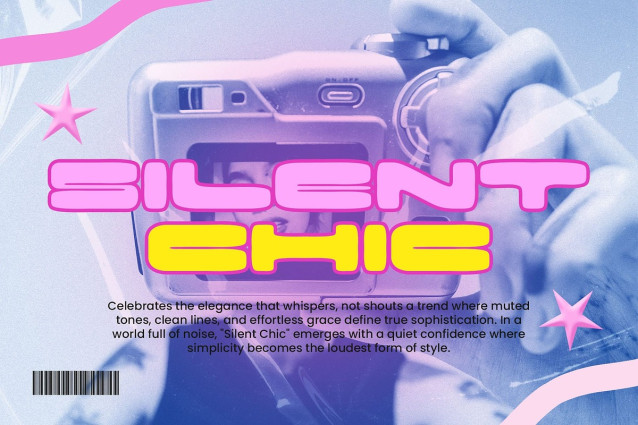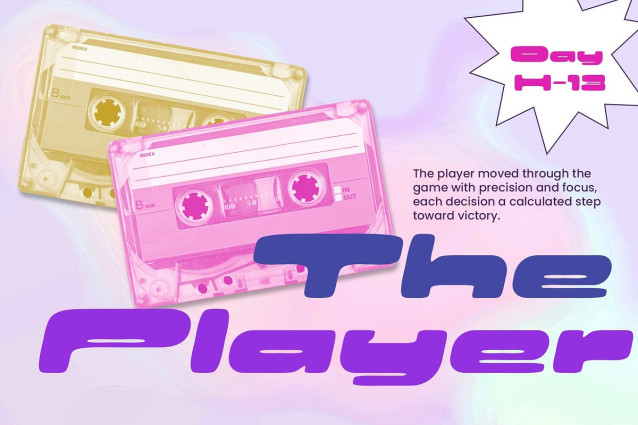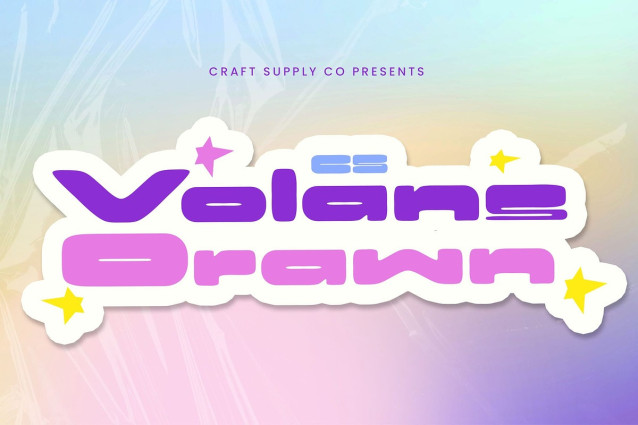
CS Volans Drawn Font
CS Volans Drawn is a modern sans-serif font that boldly embraces techno and futuristic design. Its ultra-wide, powerful letterforms create a daring, innovative look that feels both cutting-edge and commanding. Perfect for forward-thinking designs, this font makes a strong statement and instantly captures attention.
Ultra-Wide Shapes for Maximum Impact The font’s ultra-wide structure reinforces its bold and futuristic style, delivering a modern aesthetic that’s assertive and visually striking. Each character is designed with precision, emphasizing a strong and confident energy ideal for projects that demand a bold and distinctive voice.
Drawn Effect for a Dynamic, Artistic Feel Enhanced with a drawn effect, this techno font adds an artistic, textured layer to its futuristic base. This handcrafted touch introduces subtle irregularities that bring life, depth, and character to the design, balancing the technical sharpness with a more creative and expressive feel.
Perfect for Tech Branding, Futuristic Posters, and Digital Creativity Whether used for tech company branding, futuristic event posters, or experimental digital designs, this ultra wide font delivers a unique blend of innovation and artistry. Its wide, daring form combined with the drawn texture makes it ideal for projects aiming to stand out with a modern, edgy, and creative identity.